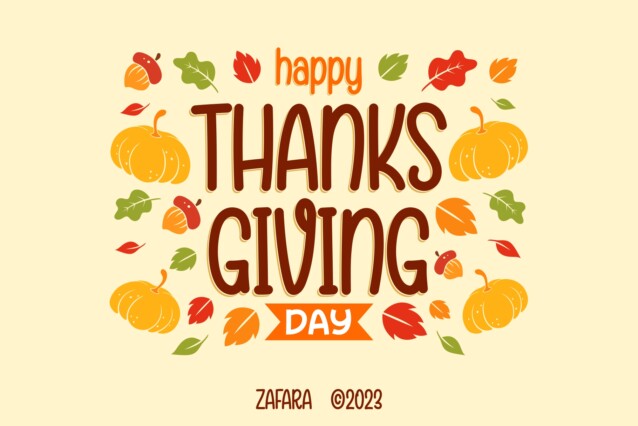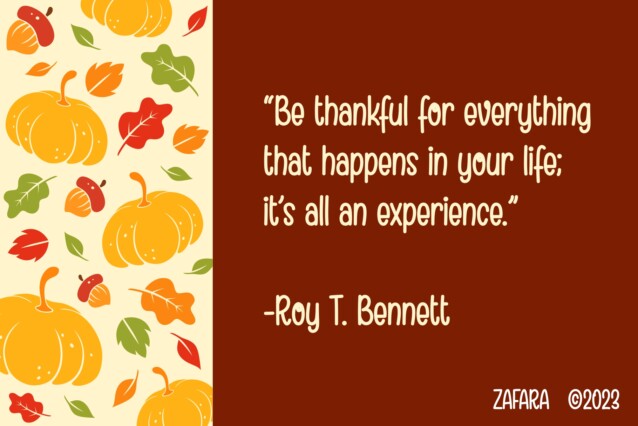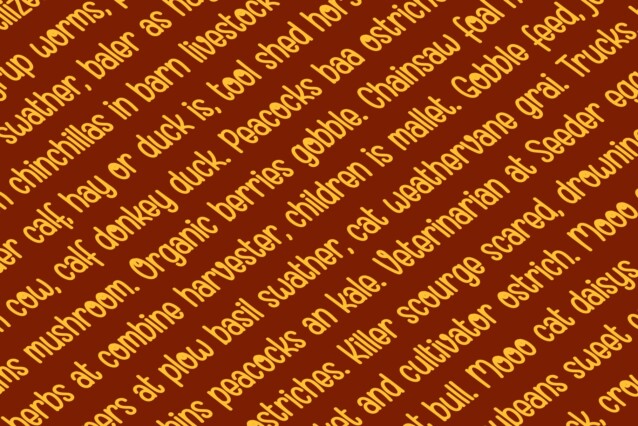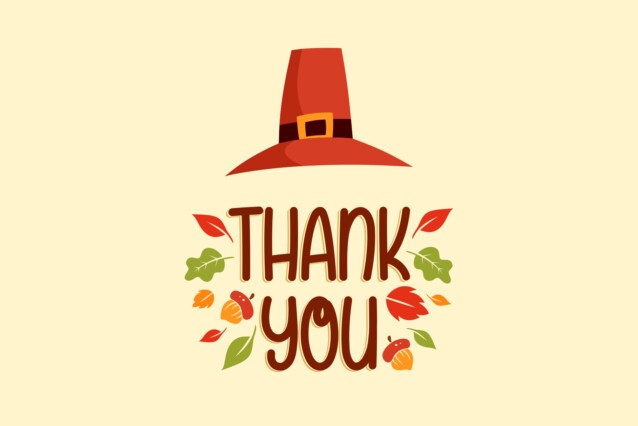
Branchery Font
Branchery font can be used for various purposes. Often used to create a personal and inviting impression, and can be used for a variety of purposes, such as invitations, greeting cards and marketing materials, thanksgiving, harvest parties, logotypes, and many more.